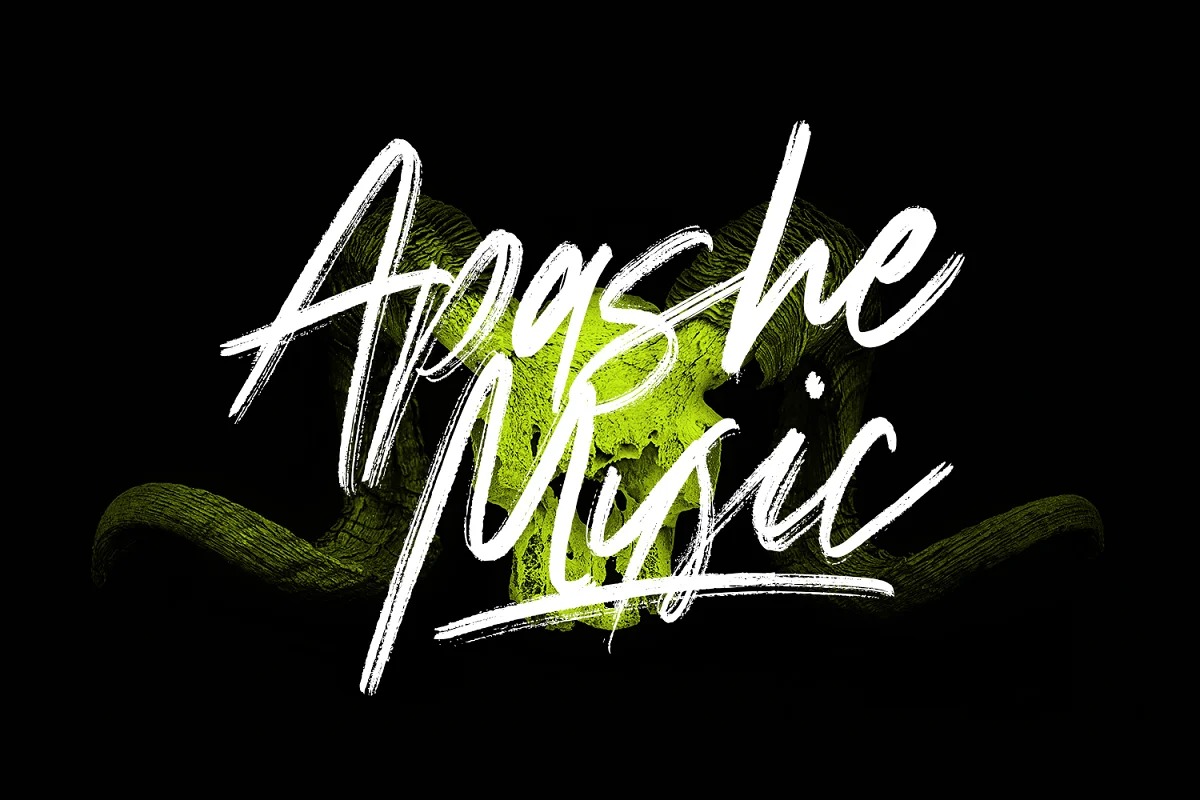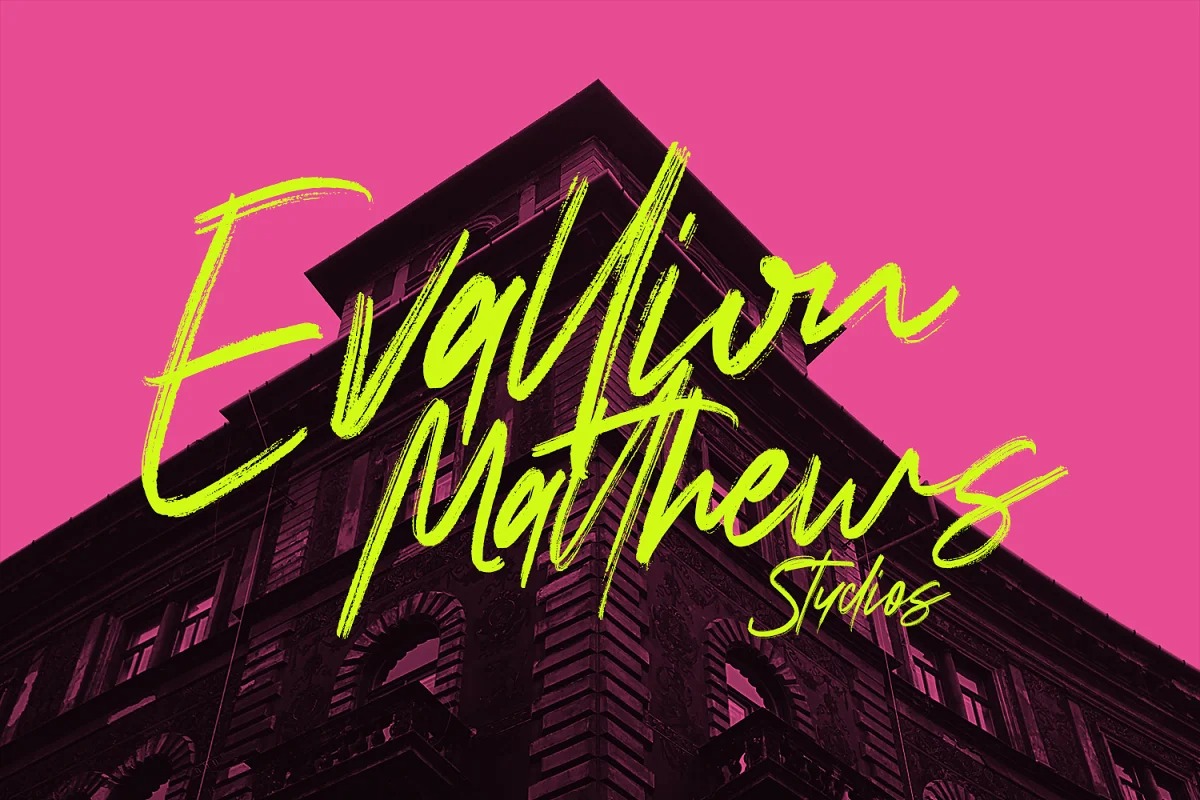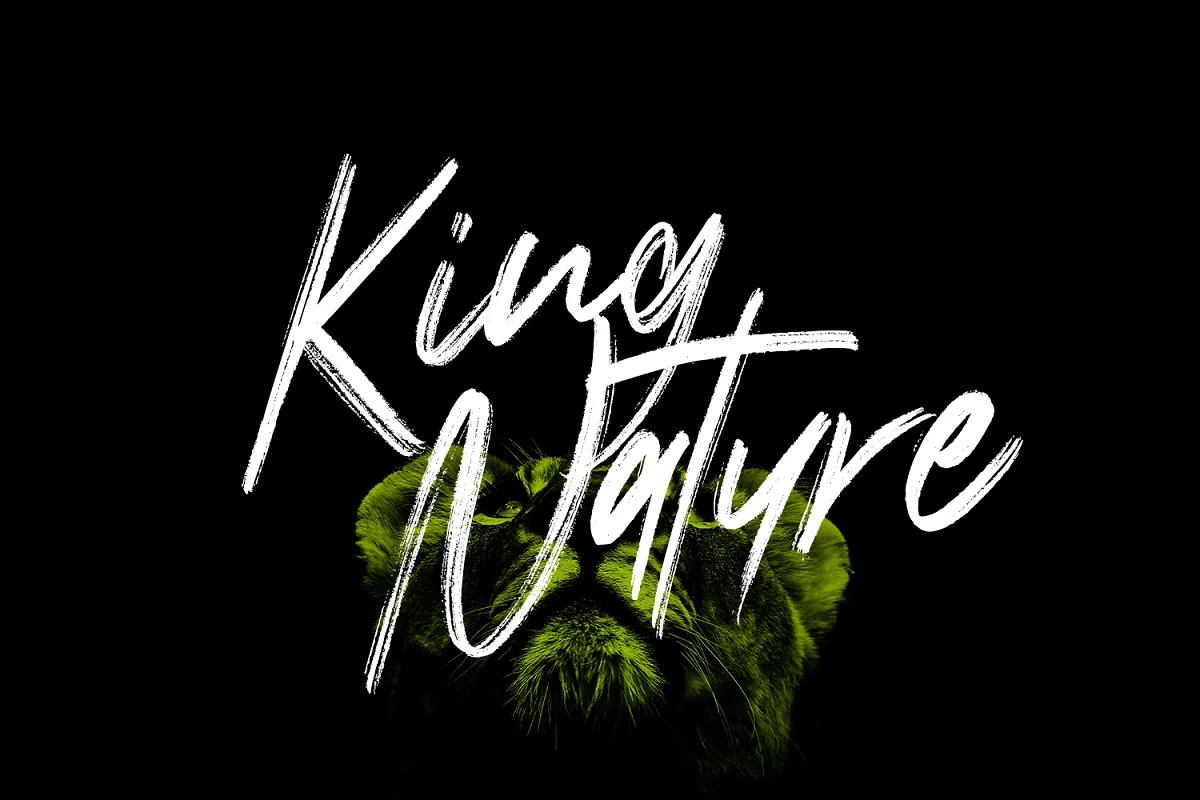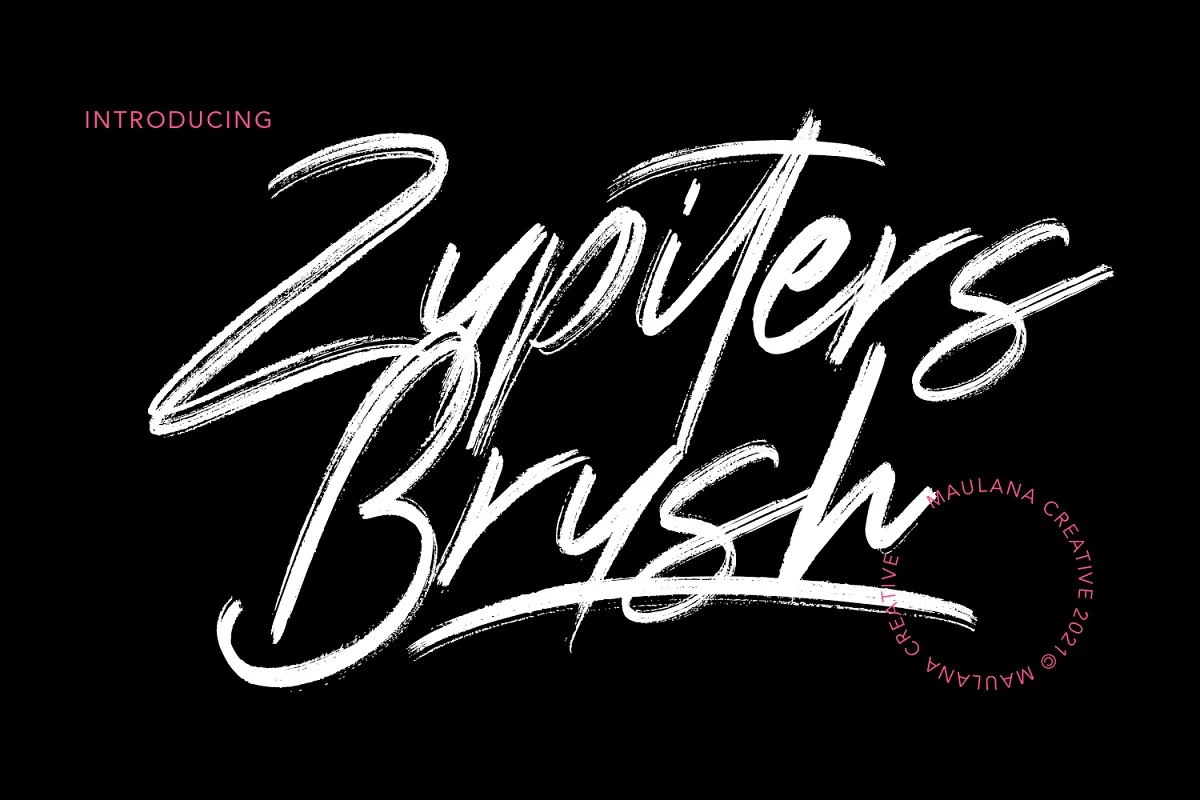
Zupiters Font
Zupiters Brush Font
This typeface designed by Maulana Creative is a casual, fun handwritten font, created by using a brush pen. With natural feel brush stroke, super slanted and fun character with a ligatures. To give you an extra creative work. Zupiters Brush font support multilingual more than 100+ language. This font is good for logo design, Social media, Movie Titles, Books Titles, a short text even a long text letter and good for your secondary text font with sans or serif. Make a stunning work with Zupiters Brush font.